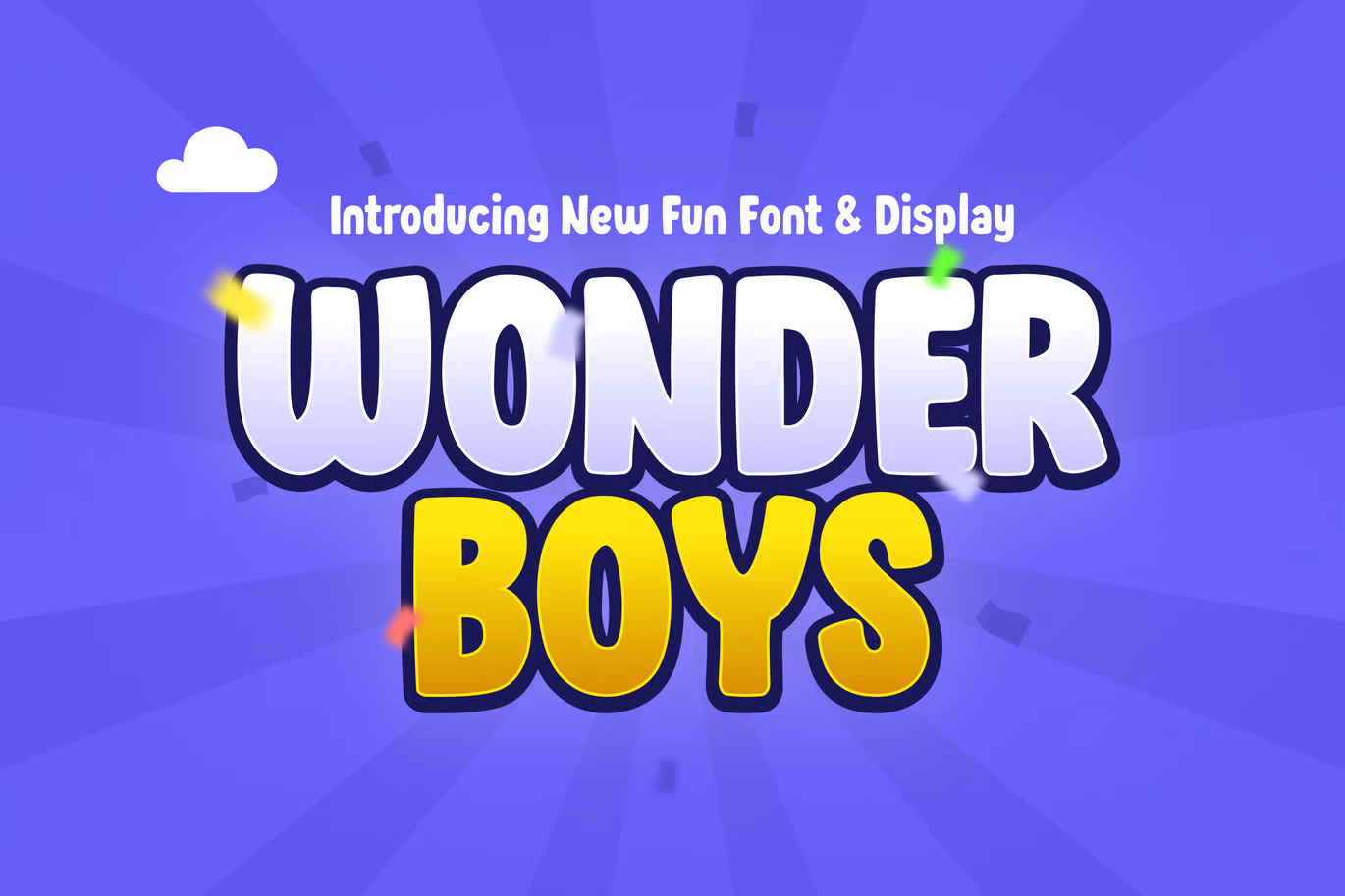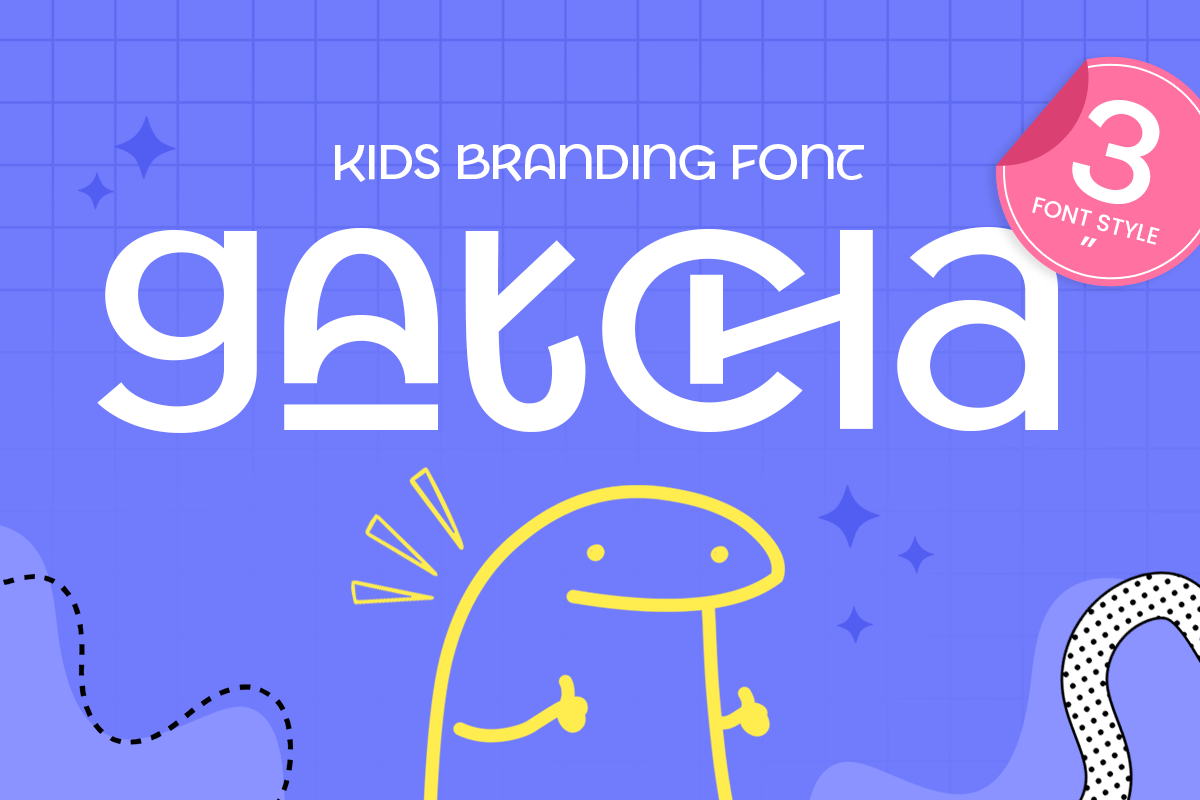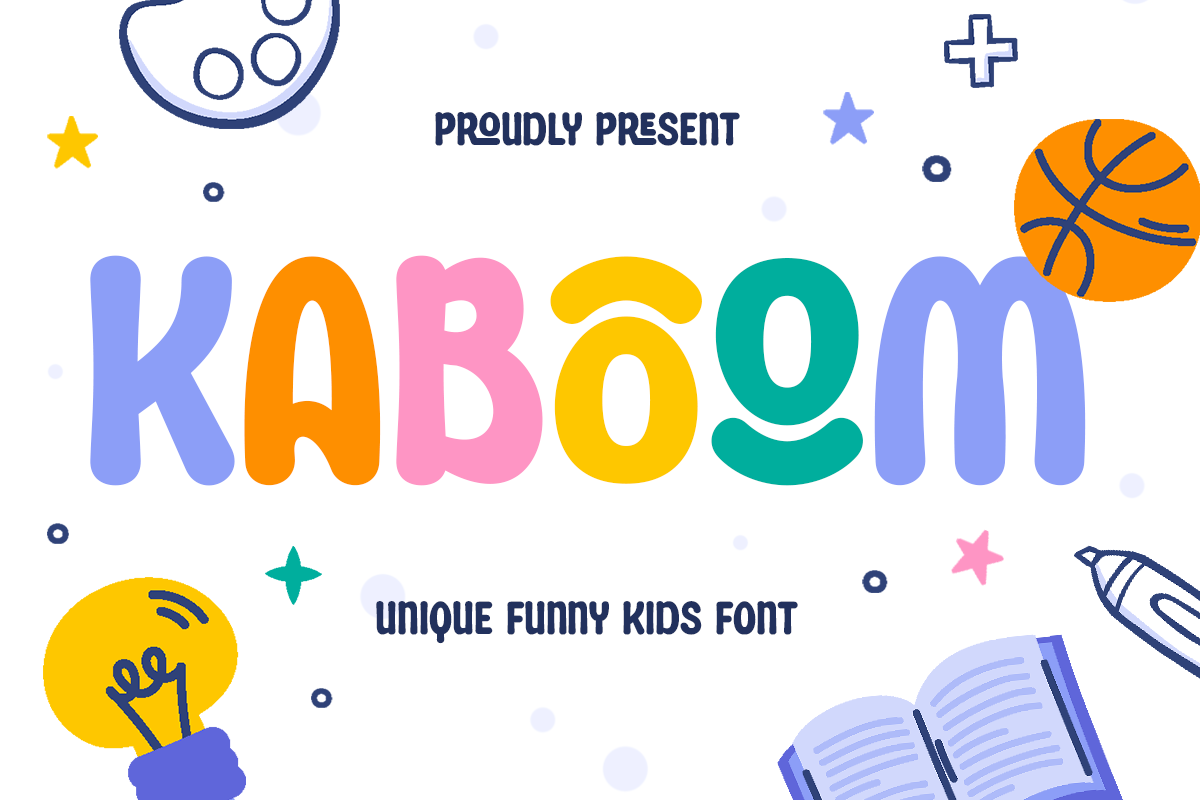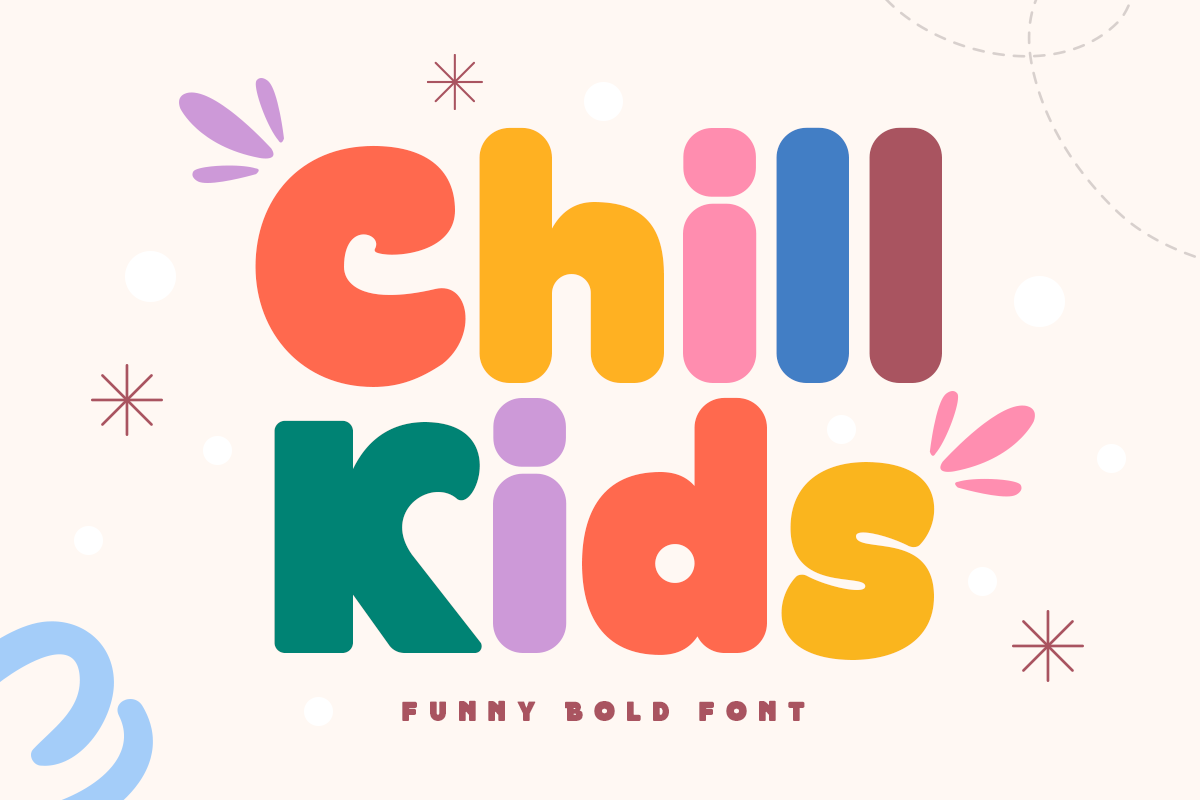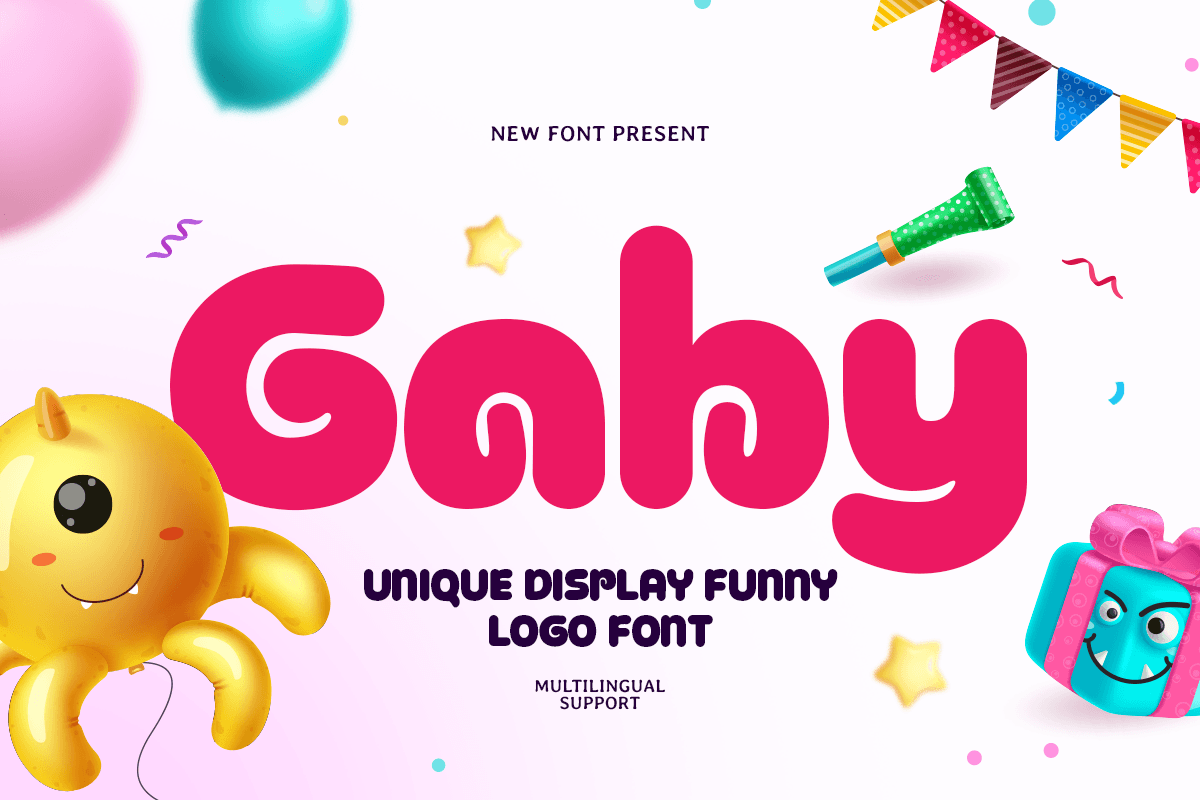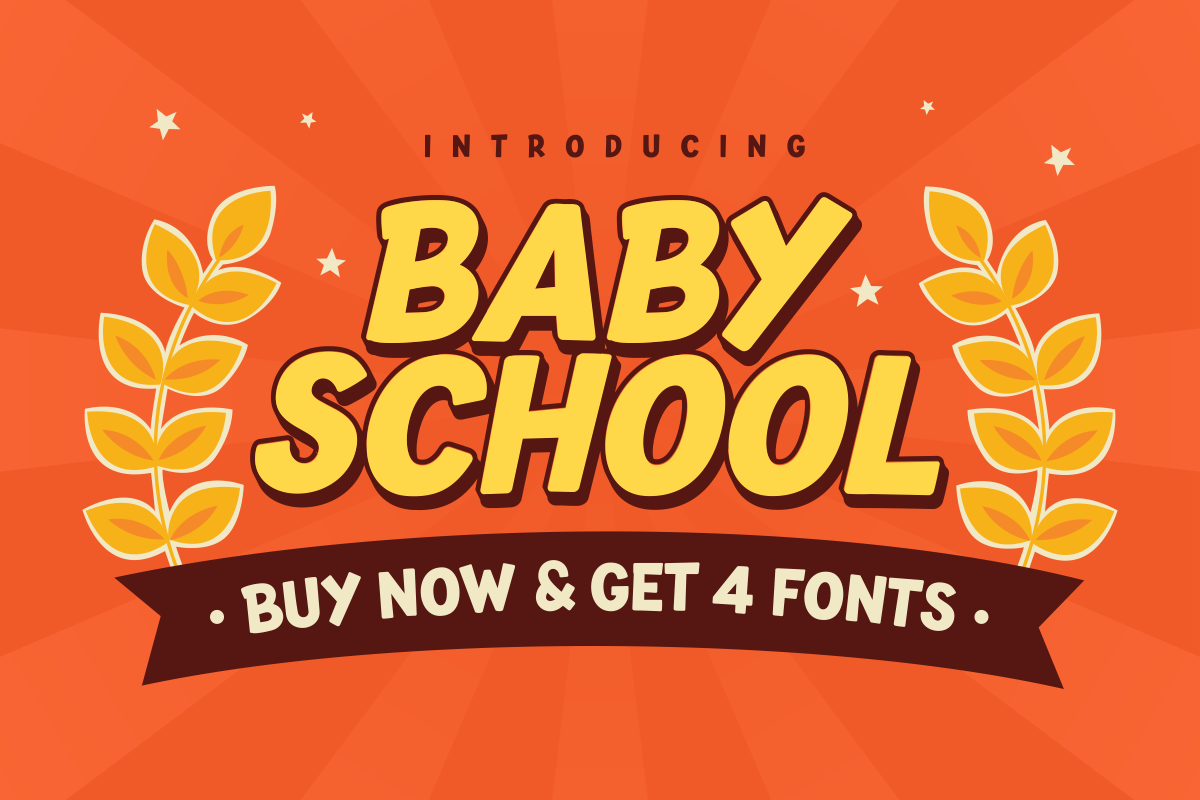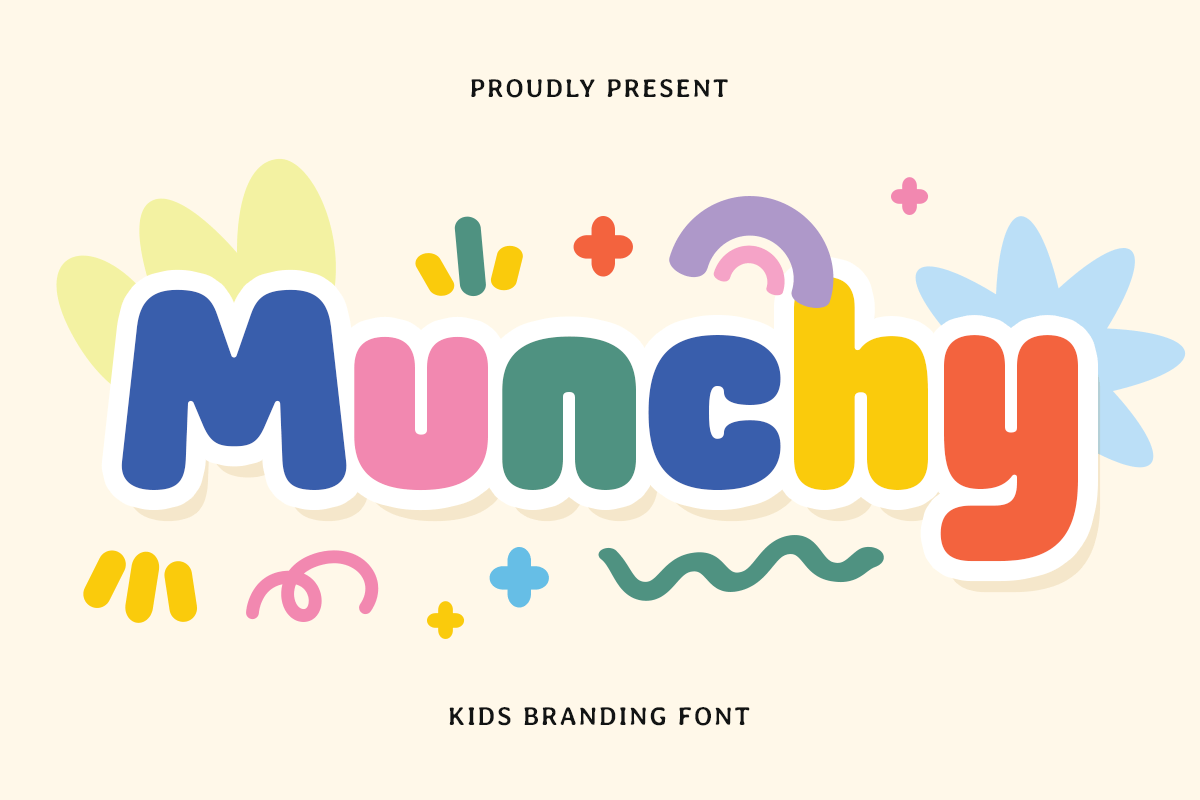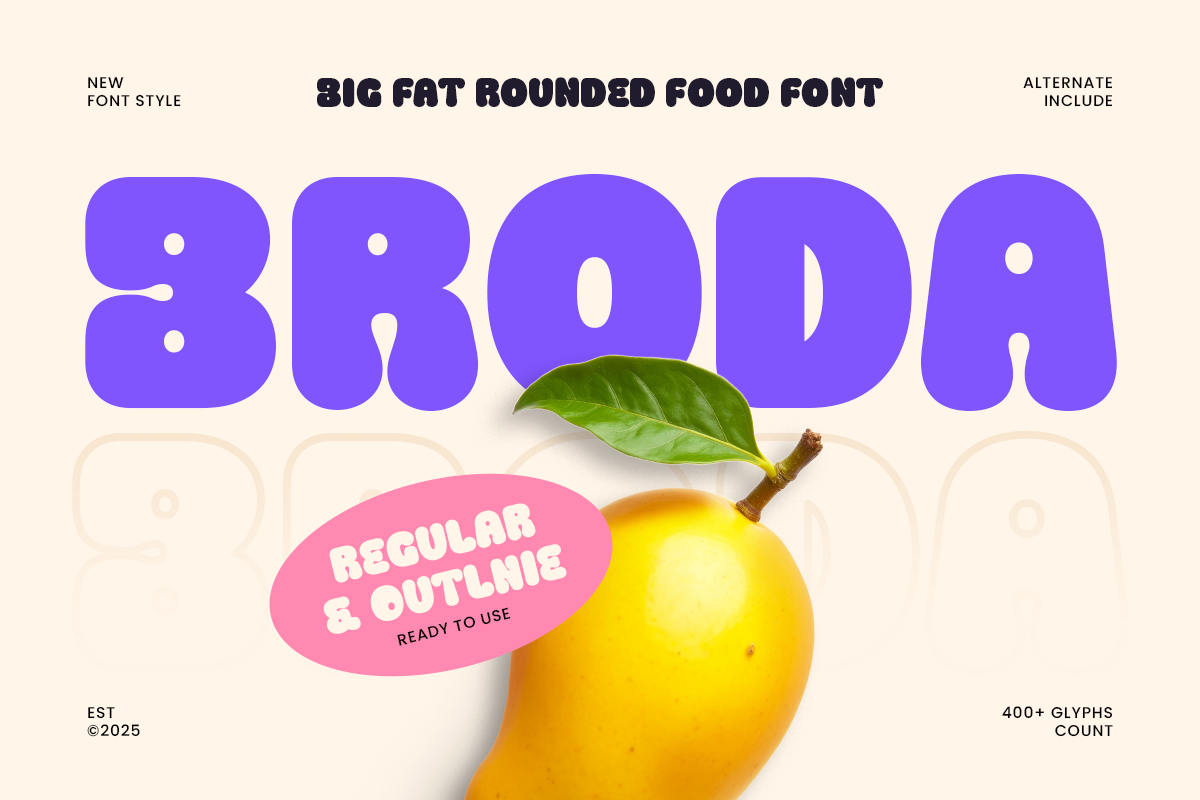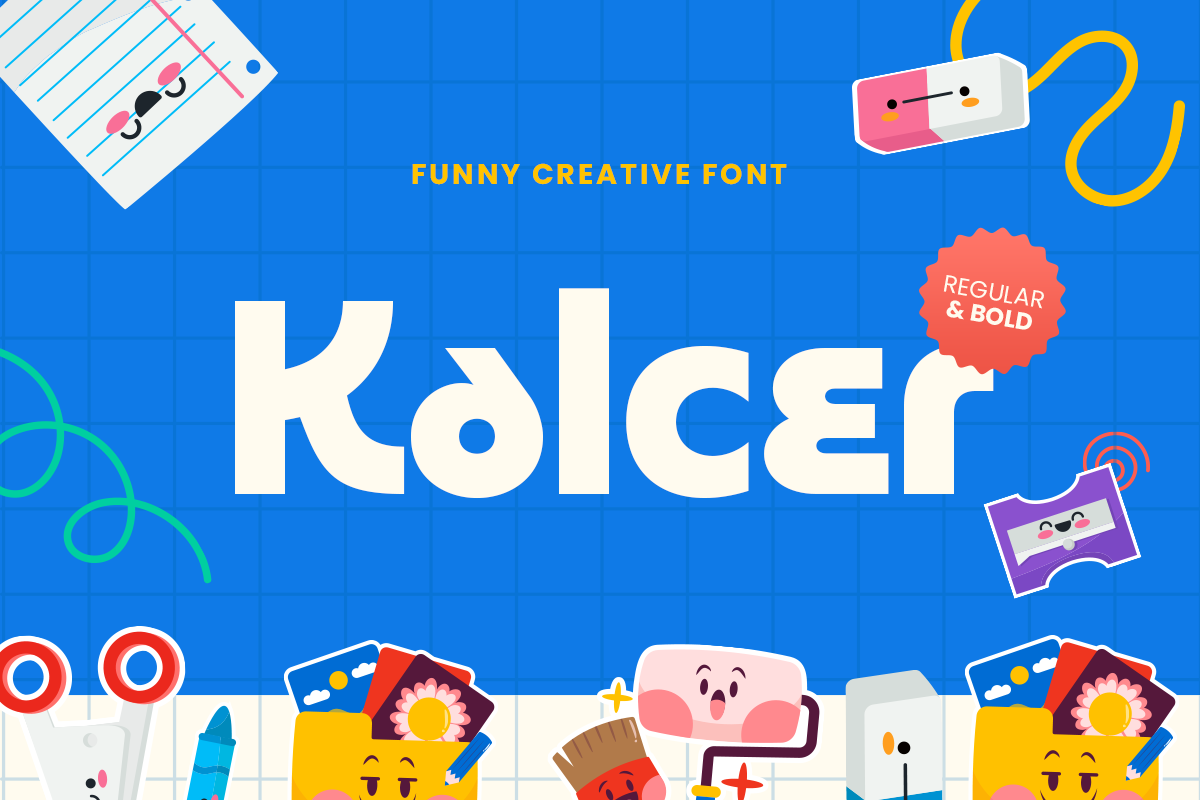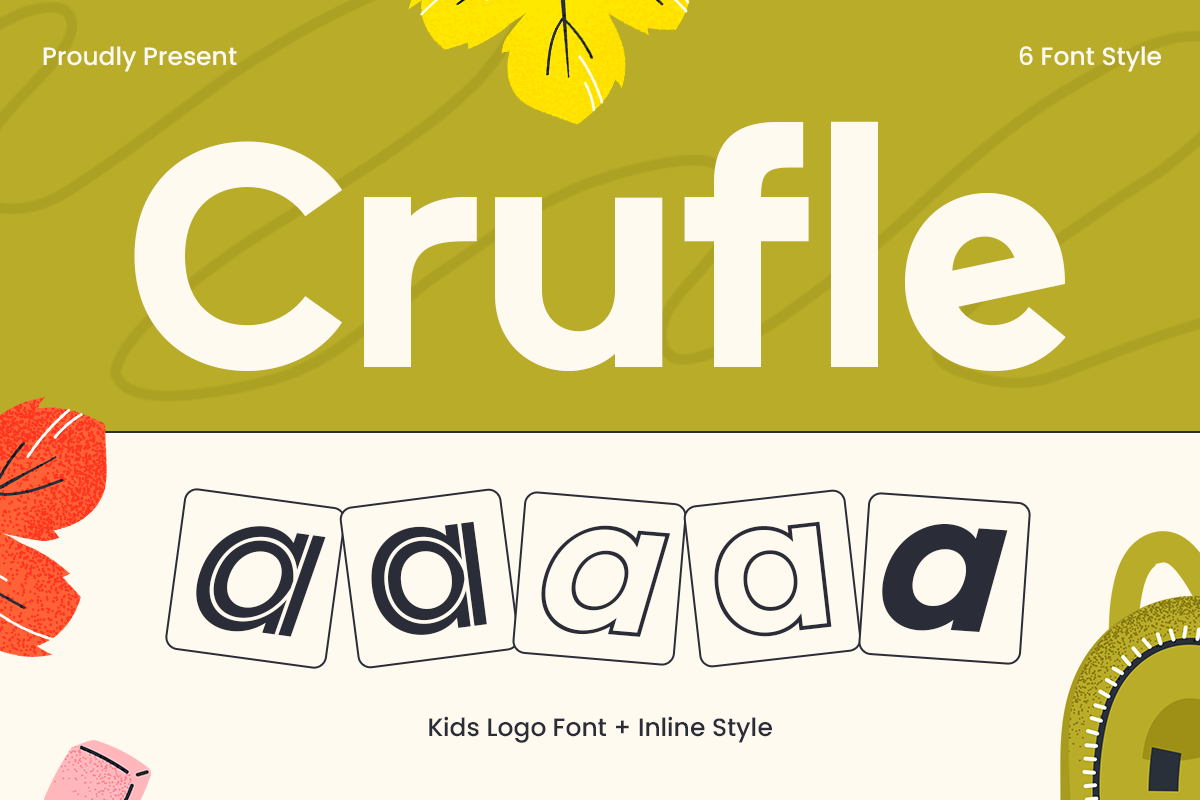
Toy Story 5 Font Alternative
Discover the best Toy Story 5 font alternatives for playful, bold, and cartoon-inspired designs. Explore fun rounded fonts from Sensatype Studio that are perfect for kids branding, toy packaging, posters, birthday invitations, game titles, and cheerful creative projects.
Toy Story 5 Font Alternative
Toy Story is one of the most iconic animated films produced by Pixar Animation Studios and distributed by Walt Disney Pictures. The film introduces audiences to an imaginative world where toys come to life when humans are not around. Toy Story is instantly recognizable not only because of its beloved characters and heartwarming storytelling, but also because of its bold, playful, and memorable typography.
The Toy Story logo lettering features adventurous and charming letterforms that immediately evoke a magical world filled with humor, imagination, and exploration. Combined with the vibrant visuals of the toy universe, its typography creates a joyful atmosphere with a strong sense of nostalgia. From movie posters to merchandise and promotional materials, the Toy Story font style has become a distinctive visual reference that sparks fun, childhood memories, and creativity.
Because of its cheerful and iconic appearance, many designers look for a Toy Story 5 font alternative to create playful designs with a similar cartoon-inspired feeling. With Toy Story 5 bringing a fresh toy-meets-tech direction, designers can explore font alternatives that combine classic toy-like shapes with modern, bold, and digital-friendly typography.
So in this article, we will explore what font style is associated with Toy Story, why it works so well, how to choose the right alternative font, and which fonts from Sensatype Studio you can use to achieve a similar mood for your own non-official creative projects.
What Font Is Used in Toy Story?
There is no official Toy Story font publicly available for download or general use. The Toy Story logo uses custom typography created specifically for the film’s visual identity. However, visually, the word “STORY” in the logo is often associated with Gill Sans Ultra Bold because of its bold, rounded, and friendly letterforms.
Several custom adjustments were likely applied to certain letter shapes to create the cheerful, balanced, and iconic appearance that defines the Toy Story logo. This custom approach allows the typography to feel bold, playful, and memorable while perfectly matching the film’s imaginative and family-friendly tone.
Instead of copying the original logo, designers can use alternative fonts with similar characteristics, such as bold shapes, rounded forms, playful proportions, and strong readability. These qualities make the font style suitable for kids branding, toy packaging, birthday invitations, cartoon posters, game titles, and entertainment-themed designs.
Why Toy Story 5 Needs a Fresh Font Alternative
Toy Story 5 brings a new creative direction with its “Toy meets Tech” theme. This makes the font inspiration slightly different from the classic Toy Story mood. Instead of focusing only on nostalgic toy-box lettering, designers can also explore fonts that feel playful, bold, and modern enough for digital-friendly layouts.
A good Toy Story 5 font alternative should balance two visual worlds: the warm, rounded, and cheerful feeling of classic toys, and the cleaner, more modern look of today’s tech-inspired design. Fonts with bold rounded shapes, cartoon energy, strong readability, and playful logo character are the best fit for this direction.
This balance is especially useful for projects such as kids branding, toy packaging, posters, birthday invitations, YouTube thumbnails, game graphics, website headers, stickers, educational materials, and entertainment-themed promotional layouts.
Font Alternatives for Toy Story 5
Below are several font alternatives from Sensatype Studio that can help you create a playful, bold, and cartoon-inspired look similar to the joyful spirit of Toy Story.
Kalcer - Funny Creative Font
Kalcer is a playful font with bubbly shapes and a carefree personality. Its rounded forms make it feel friendly, cheerful, and full of imagination. This font works beautifully for kids books, fun packaging, playful branding, posters, and creative projects that should feel lighthearted and joyful.
Crufle - Kids Logo Font + Inline Style
Crufle is a rounded kids logo font with a charming inline detail. The inline style adds extra visual interest, making the font feel more decorative and lively. It is perfect for snacks, games, storybooks, packaging, and children’s branding that needs to feel fun, friendly, and easy to recognize.
Munchy - Kids Branding Font
Munchy is a bold and bouncy kids font with a friendly character. Its rounded shapes and fun proportions make it suitable for toy packaging, children’s books, educational materials, birthday designs, and playful branding. This font is a strong choice for projects that need a cheerful, approachable, and kid-friendly visual tone.
If you are looking for a Toy Story 5 font alternative, Sensatype Studio offers many playful and cartoon-inspired fonts that can help bring your creative ideas to life. Whether you are designing a poster, kids product, party invitation, game title, toy packaging, website header, or promotional layout, the right font can make your design feel bold, cheerful, and full of imagination.